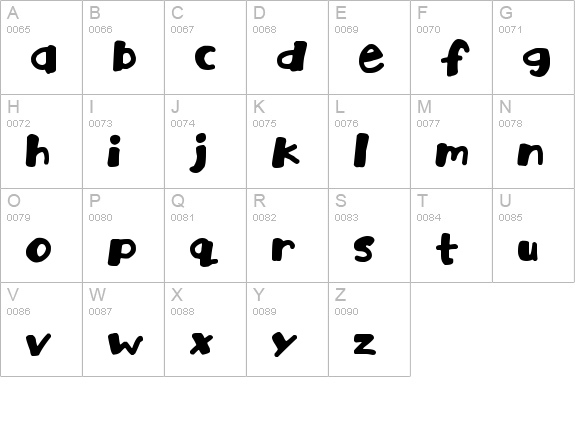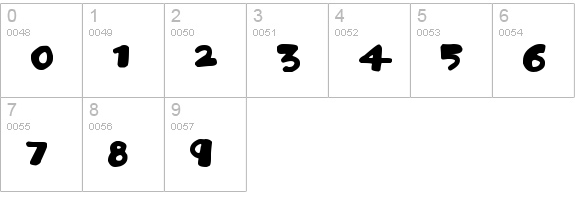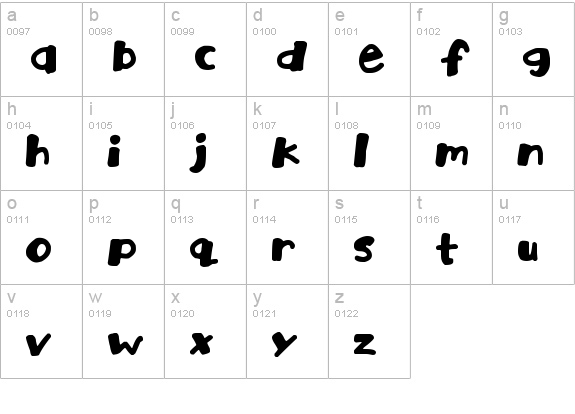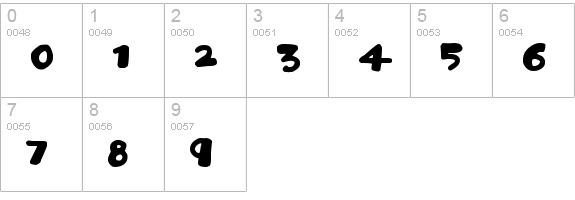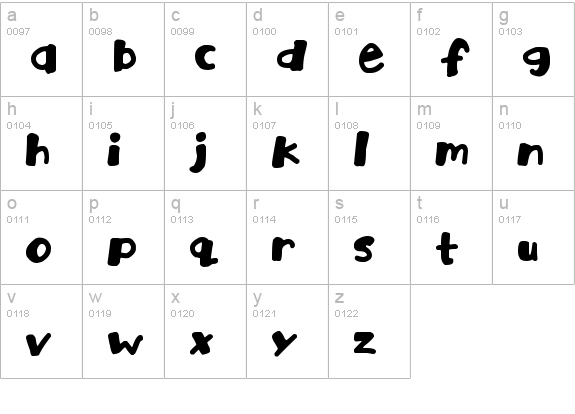
Playtime Font Details
Playtime is a free for personal use font in the Script category, designed by Darrell Flood. It has been downloaded 87 times and is available for Windows, Mac and Linux.
Playtime font is a whimsical and playful typeface that brings a sense of fun and joy to any design project. With its rounded edges and friendly appearance, Playtime is perfect for creating eye-catching headers, logos, and invitations. This versatile font is suitable for a wide range of applications, from children's books to party invitations.